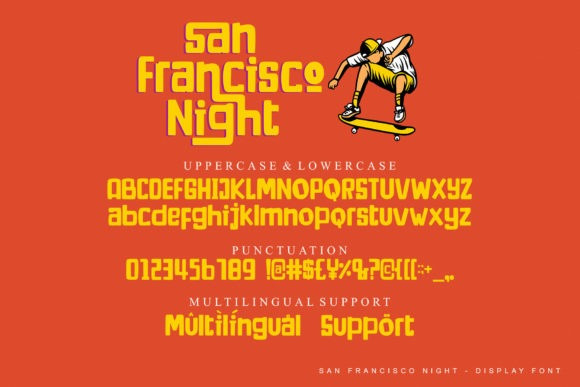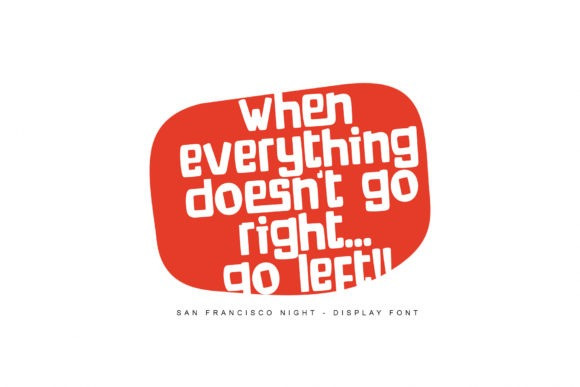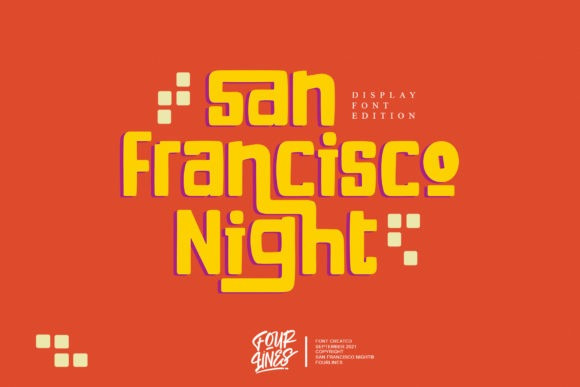
San Francisco Night Font
San Francisco Night Display Font is a cool and vintage styled display font. it works incredibly well on a variety of labels, crafts or branding designs. San Francisco Night is PUA encoded which means you can access all of the glyphs and swashes with ease!